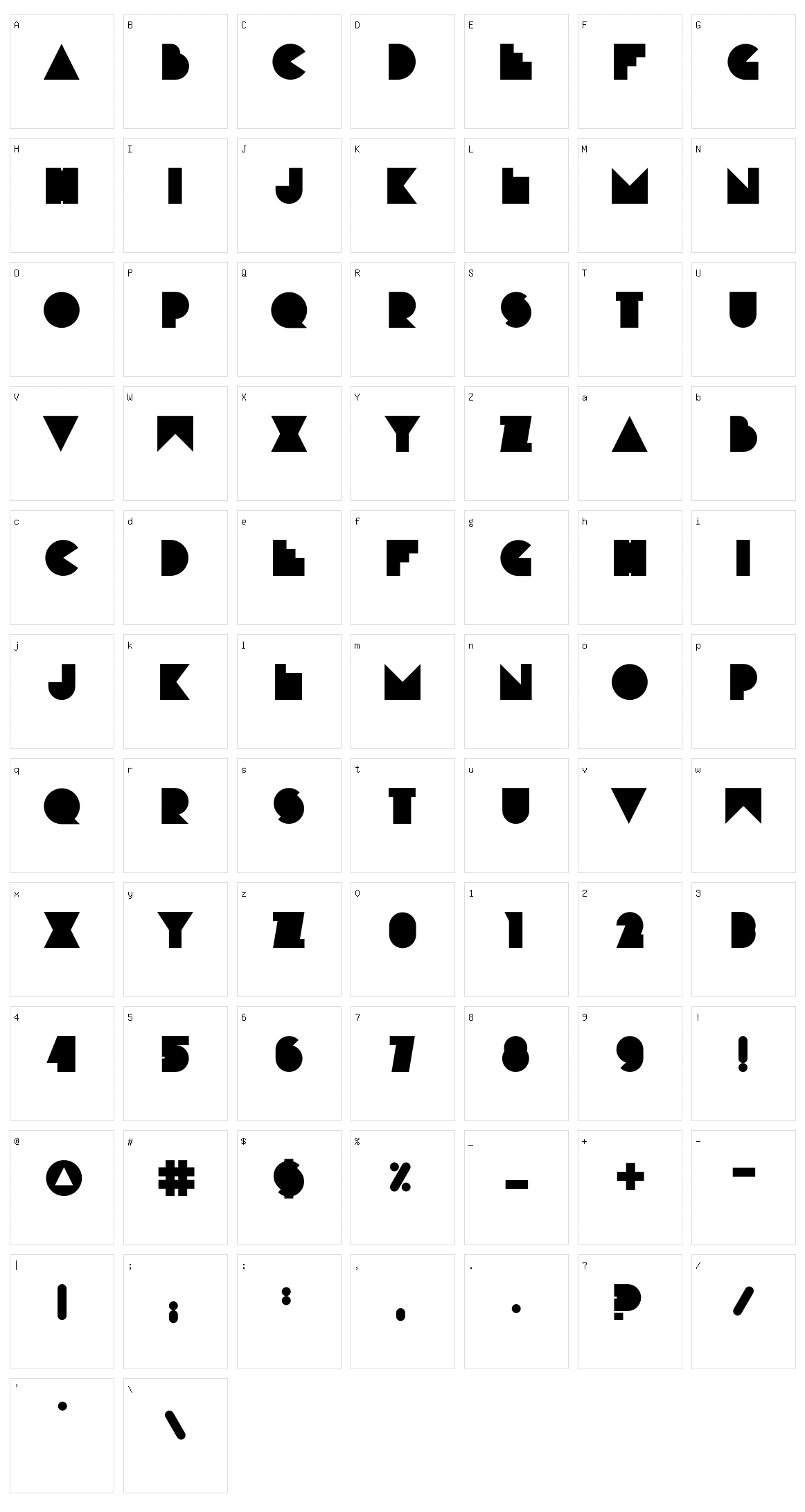
The free font RNS Bobo Dylan is carefully designed by RNS, showcasing a thoughtful balance of creativity and usability and falls under the Groovy font style. When you download the ZIP file, it contains only 5.96 KB of font files, making it lightweight and quick to download. Please review the license details below to understand permitted usage and distribution rights. If license information is not available, we recommend using this font for personal projects only or contacting the author directly for commercial usage permissions.